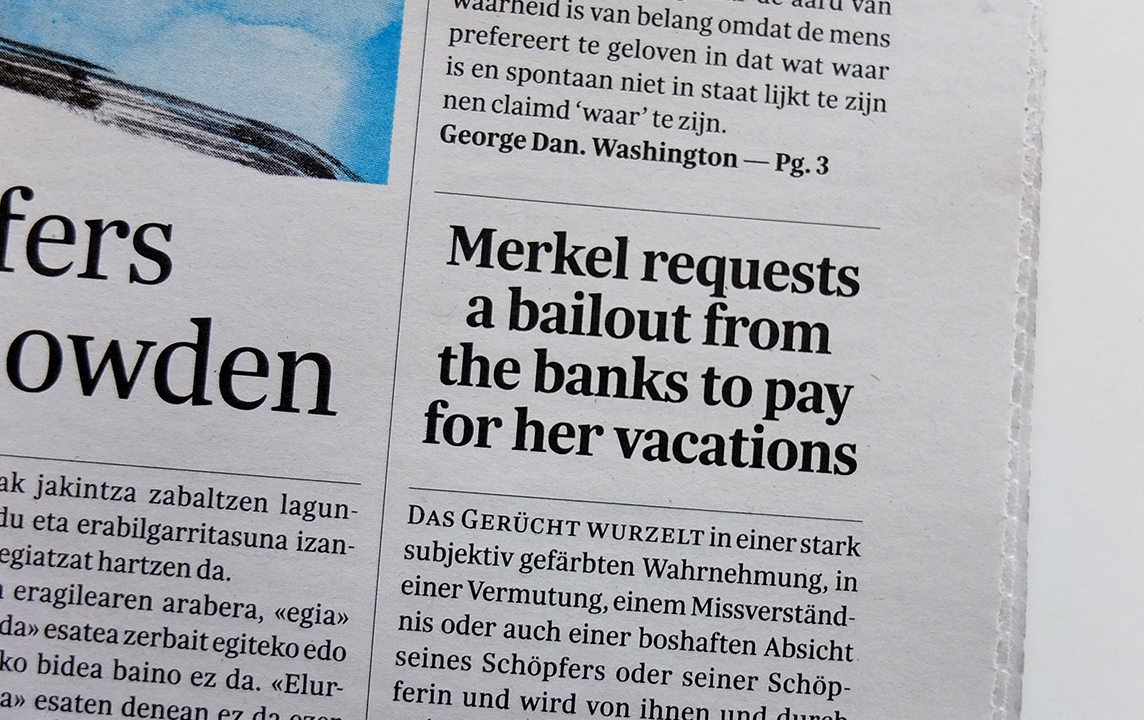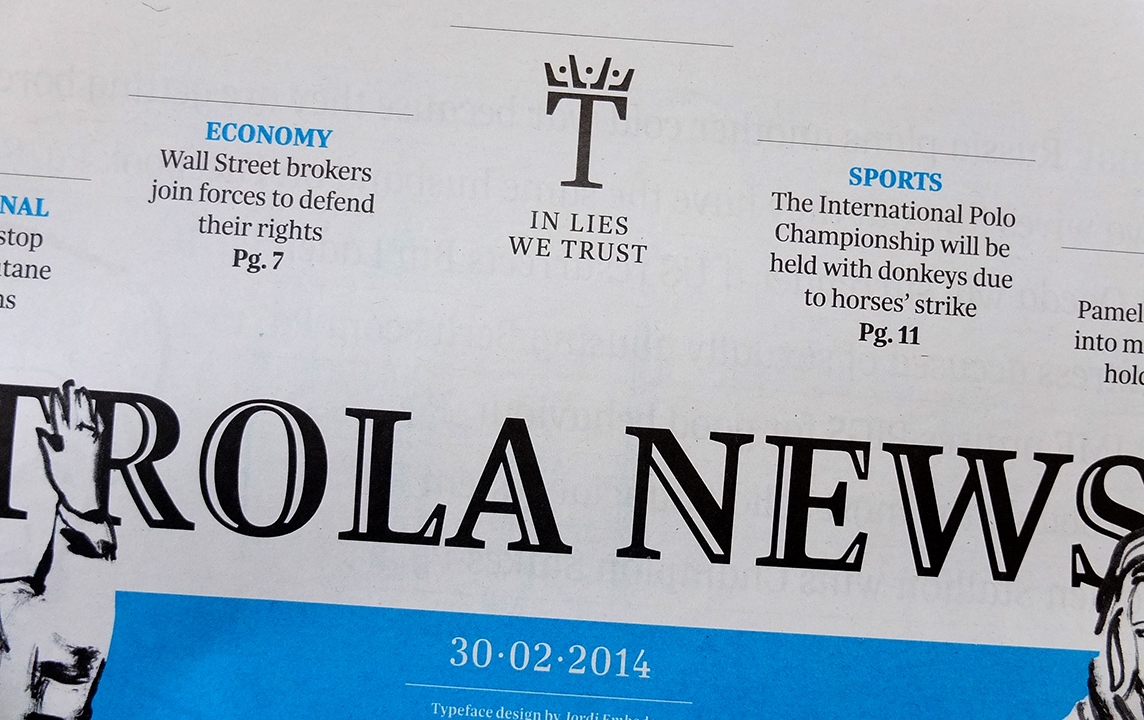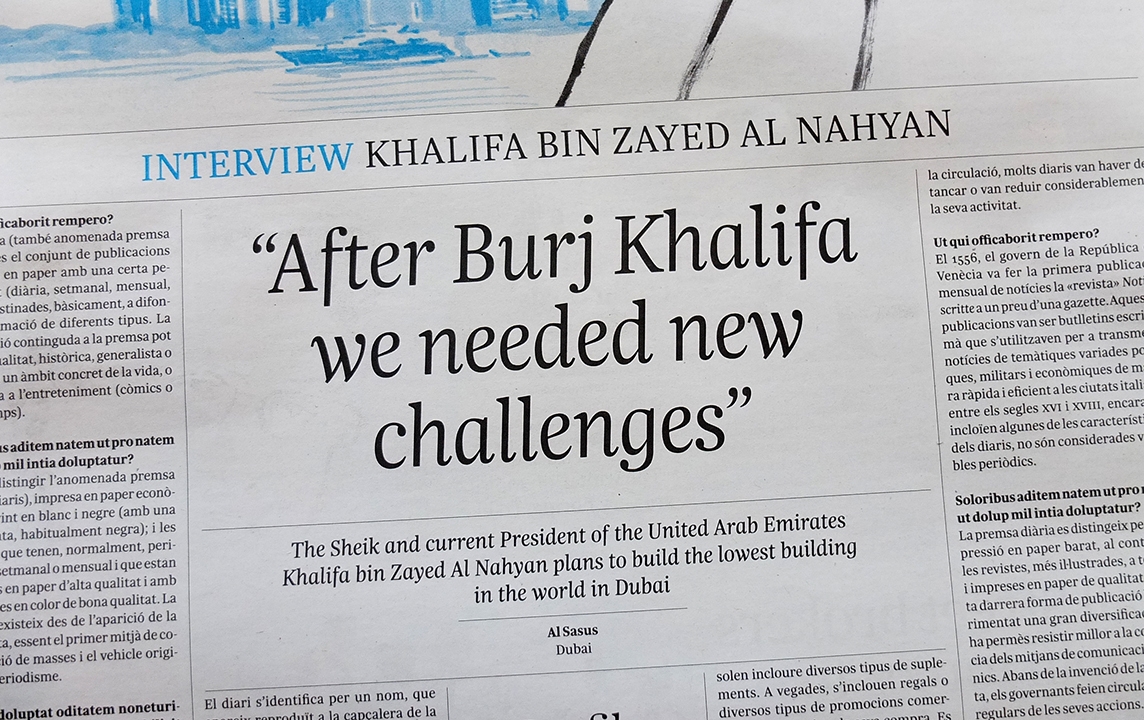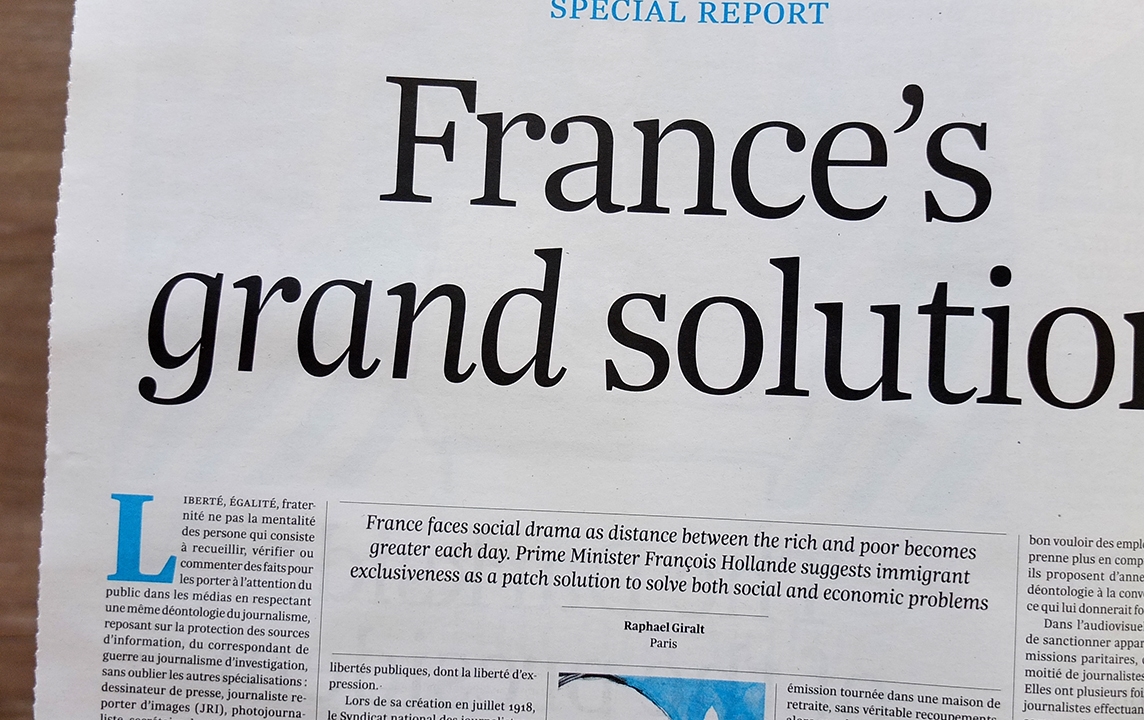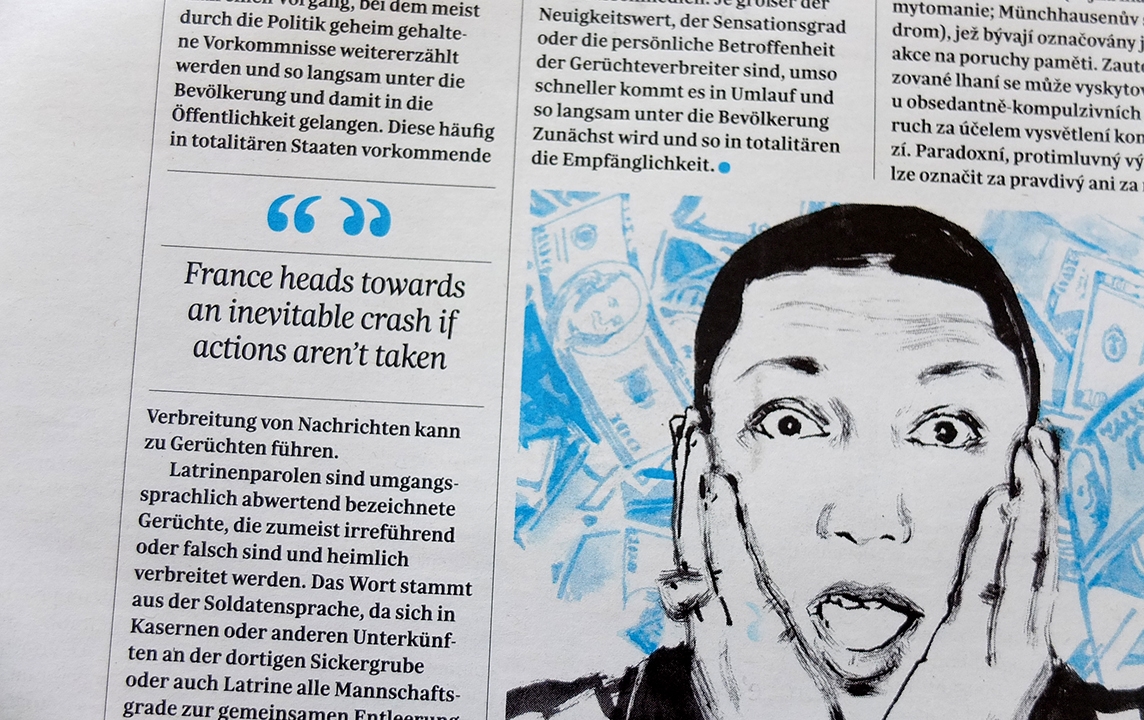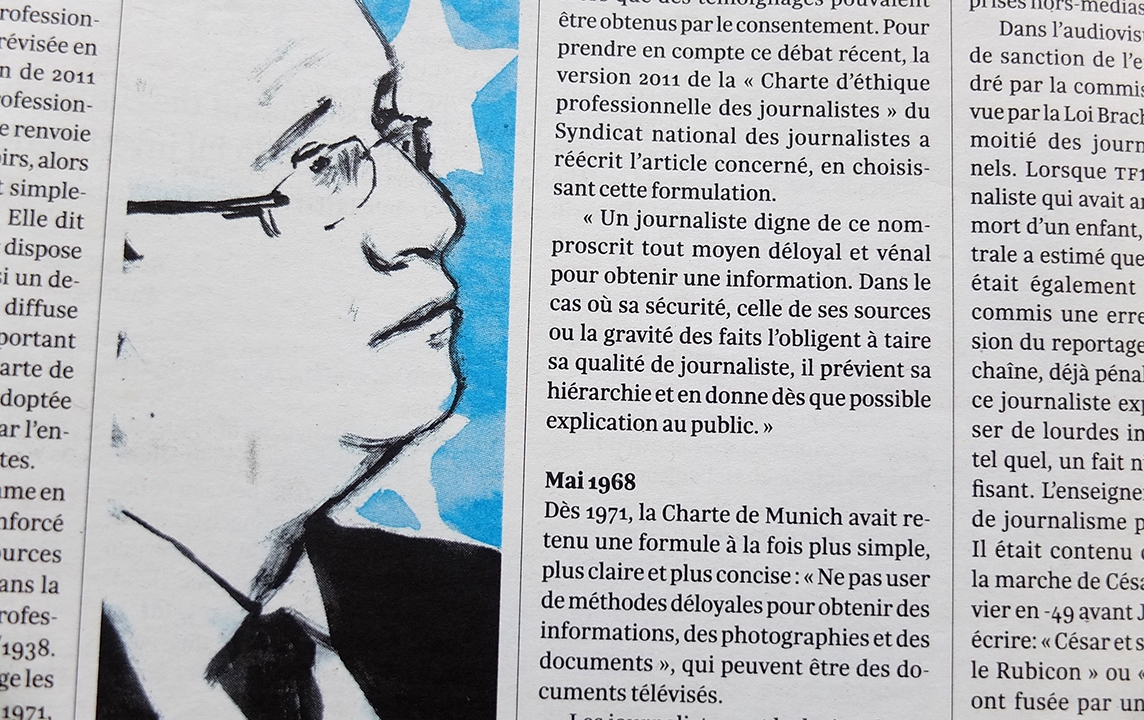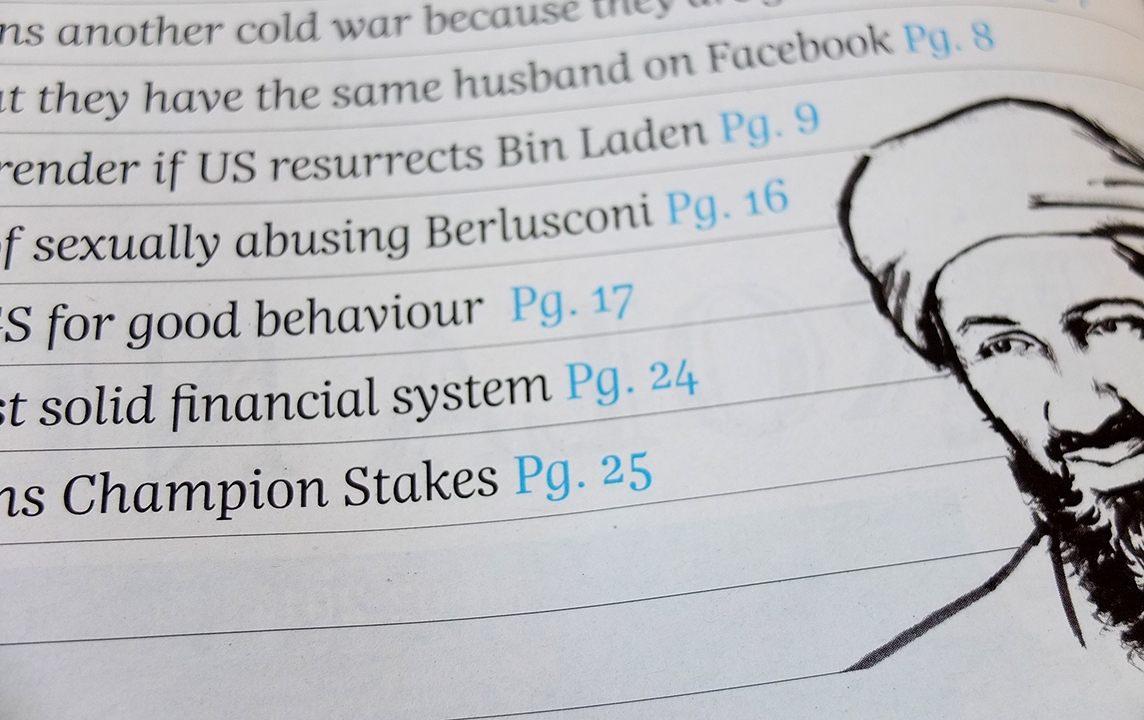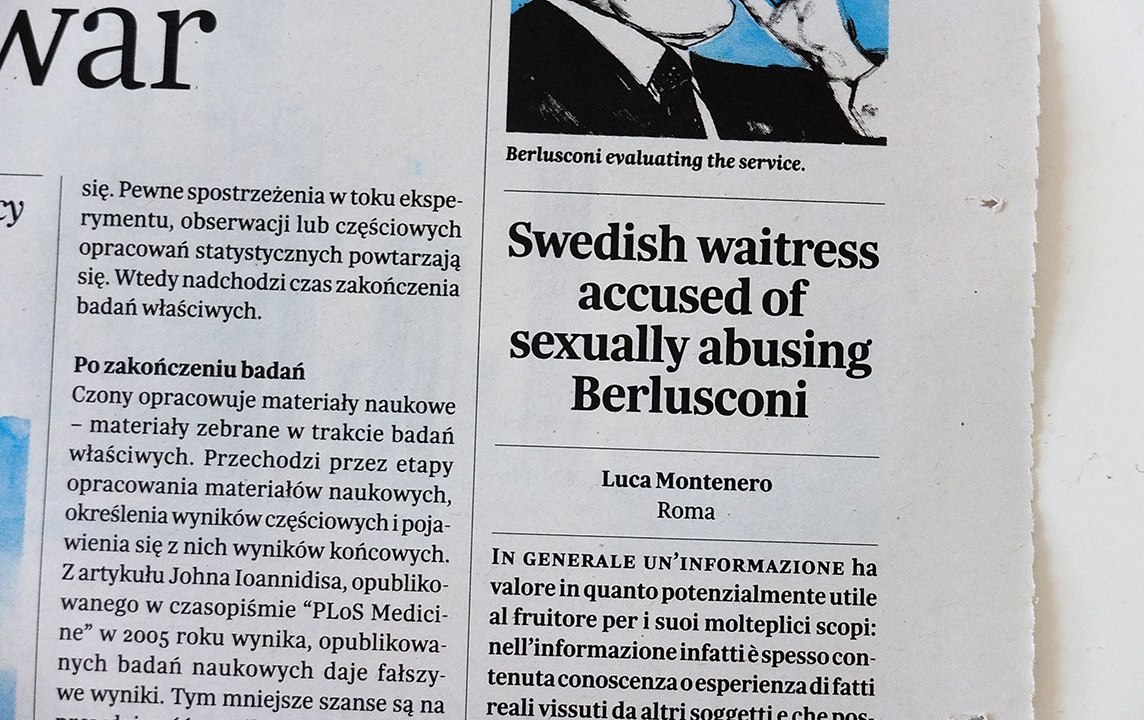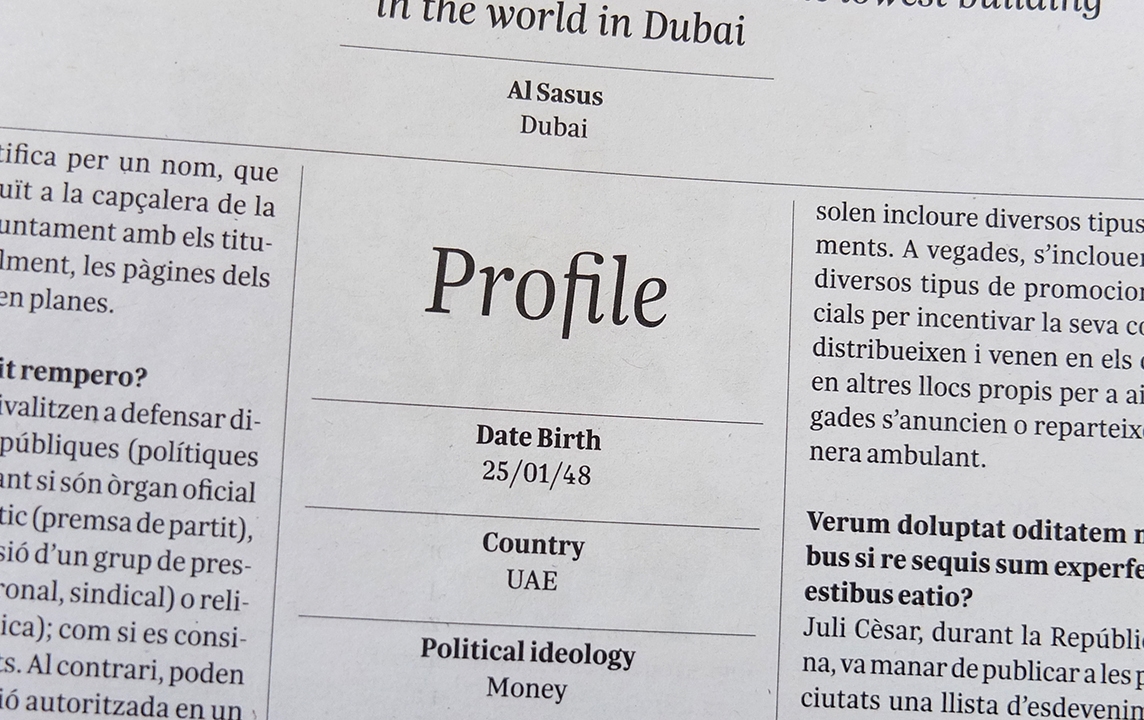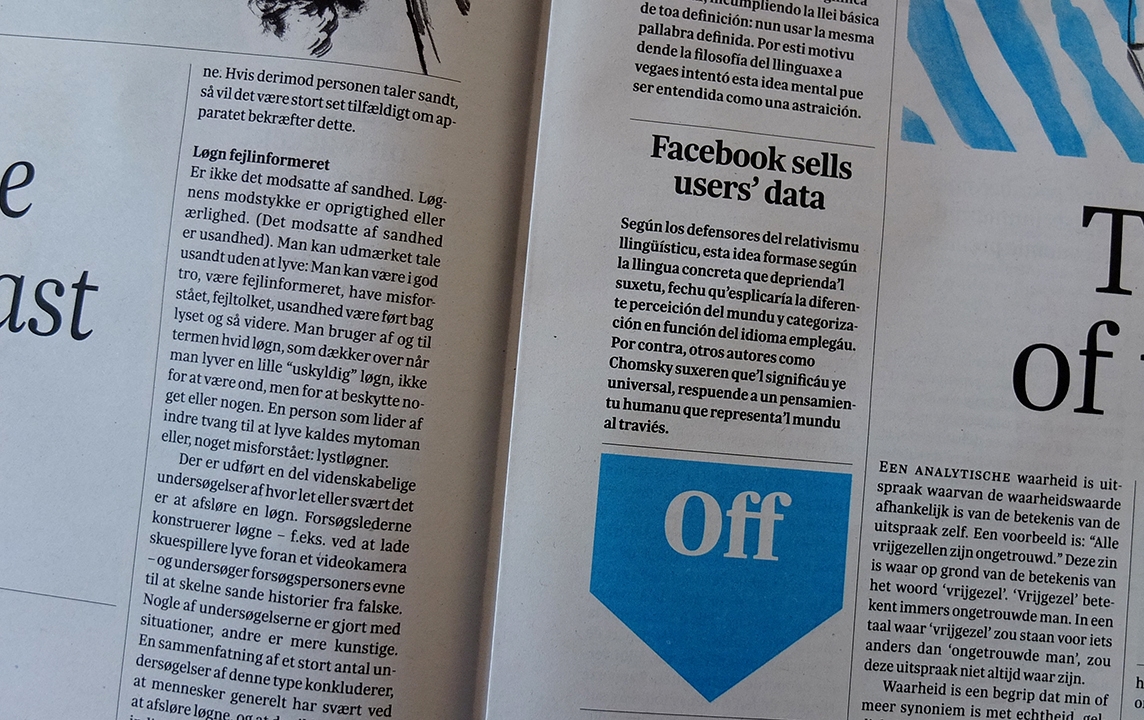
In lies we Trust
Trola
The fonts Bulo and Trola (both meaning hoax or lie in Spanish) were created using the same basic skeleton, but with key differences that lend themselves to usage in left and right-wing publications respectively. So Mucho went about putting together two type specimens in the style of national newspapers, fabricating satirical headlines and creating unique illustrations to emphasise the characteristics of each typeface. Bulo, with its rounded edges and bulky slab headlines lends itself naturally to a left-leaning daily, while Trola’s more traditional serif appeals to the right.
Conceptually Mucho has nailed it, and the publications are engaging pieces of design in their own right. Who knew typography could be such a political issue!